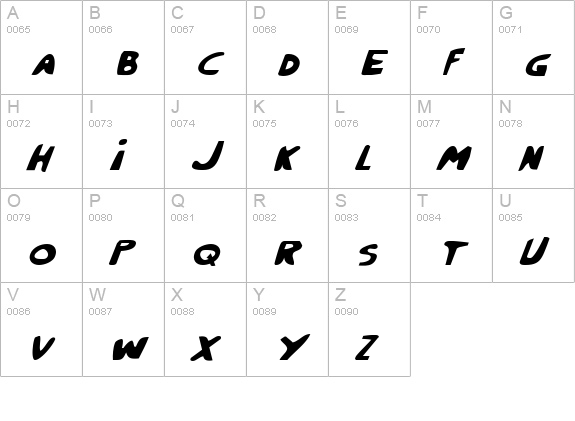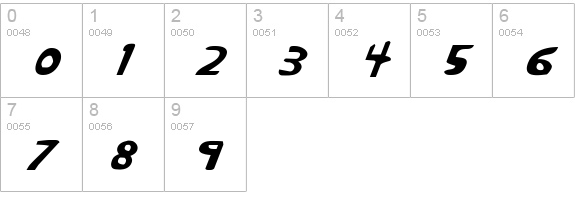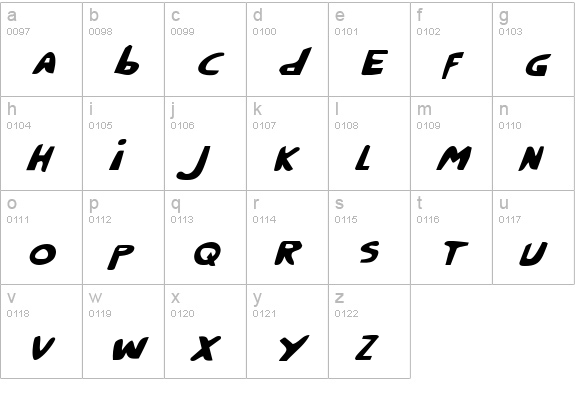
Crappity-Crap-Crap Italic is a distinctive, italic variant in the Crappity typeface family \xE2\x80\x94 well suited to design and typography projects.
Crappity-Crap-Crap Italic font offers a unique blend of whimsy and sophistication, perfect for adding a touch of playfulness to your designs. With its quirky slanted style and charming curves, this font is sure to make a statement in any project. Whether you're working on a fun poster, a creative logo, or a stylish invitation, Crappity-Crap-Crap Italic font is the perfect choice to bring your designs to life. The best part? This one-of-a-kind font is available for free download at FontsMarket.com. So why wait? Add Crappity-Crap-Crap Italic font to your collection today and unleash your creativity with this delightful and versatile typeface.